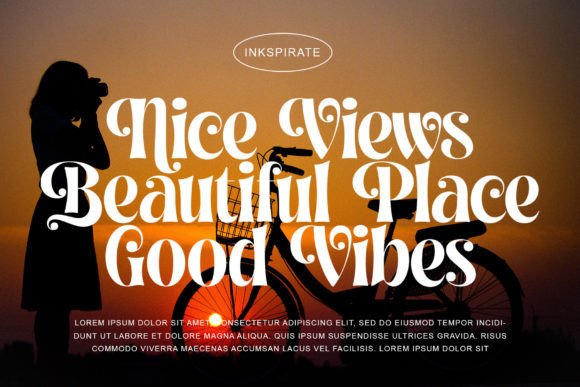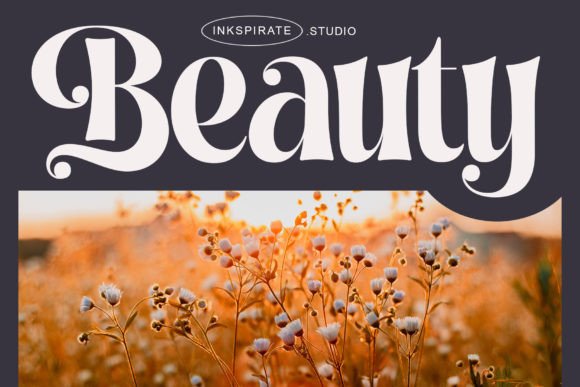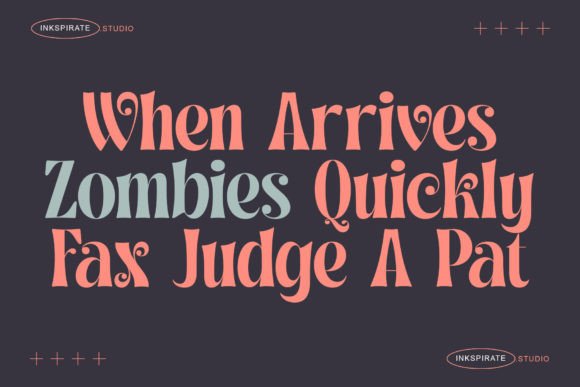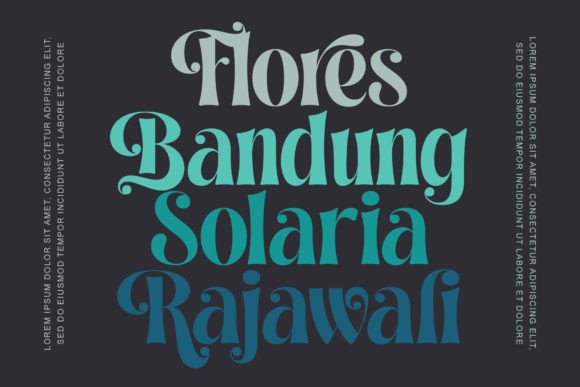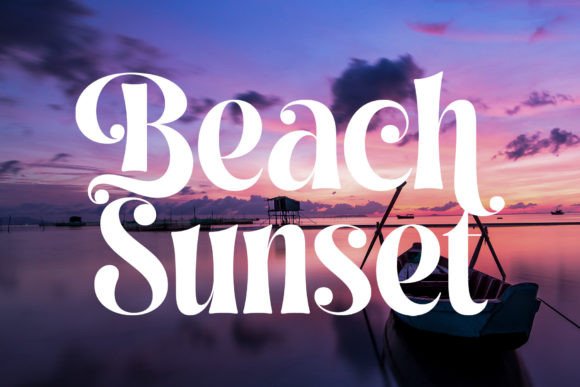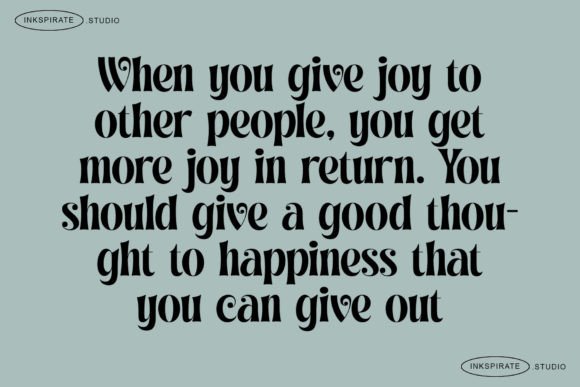
Introducing Flatens Beast Font: Elevate Your Designs with Elegance and Sophistication
In the world of typography, a font can make or break a design. It’s the foundation upon which your creative vision is built, and it can elevate your work from ordinary to extraordinary. If you’re a designer, craft, or simply someone who appreciates the art of beautiful typography, you’re in luck. We’re excited to introduce Flatens Beast Font, a special modern style serif font that’s poised to revolutionize the way you approach your designs.
A Perfect Blend of Style and Elegance
Flatens Beast Font is a masterful blend of regular and stylish letters, crafted with precision and attention to detail. This beautiful elegant font boasts stunning curves that will add a touch of sophistication to any design. Whether you’re working on a branding project, logo, greeting card, or packaging title, Flatens Beast Font is the perfect choice. Its versatility and flexibility make it an excellent addition to any designer’s toolkit.
What Sets Flatens Beast Font Apart?
So, what makes Flatens Beast Font so special? Here are just a few features that set it apart from other fonts:
- Modern Style Serif Font: Flatens Beast Font boasts a modern style serif design that’s both sleek and sophisticated.
- Beautiful Curves: The font’s curves are meticulously crafted to add a touch of elegance to your designs.
- Mix of Regular and Stylish Letters: The font combines regular and stylish letters to create a unique and visually appealing effect.
- Pinpoint Accuracy: Every detail of the font has been crafted with precision to ensure a flawless design.
Flatens Beast Font is an incredibly versatile font that can be used for a wide range of design projects, including:
- Branding Designs: Create a lasting impression with a font that exudes elegance and sophistication.
- Logos: Make your logo stand out with a unique and memorable font.
- Greeting Cards: Add a touch of class to your greeting cards with a font that’s both stylish and elegant.
- Title Packaging: Create eye-catching packaging with a font that’s sure to turn heads.
- Other Designs: From brochures to posters, Flatens Beast Font is the perfect choice for any design project.
Take Your Designs to the Next Level
With Flatens Beast Font, you can instantly elevate your designs to new heights. The font’s unique blend of style and elegance will add a touch of sophistication to any project, making it perfect for designers and crafters who want to create something truly special.
Don’t settle for ordinary fonts that fail to inspire. Choose Flatens Beast Font for your next design project and experience the difference for yourself. With its stunning curves, modern style serif design, and versatility, this font is sure to become a staple in your design toolkit.
Get Ready to Create Something Amazing